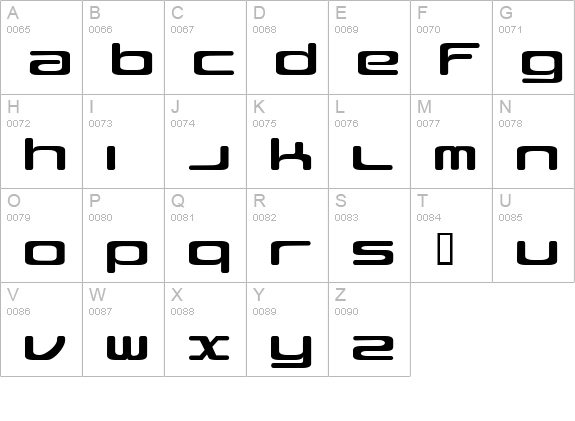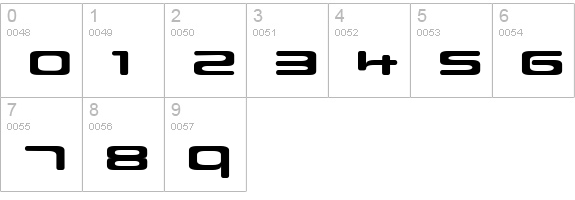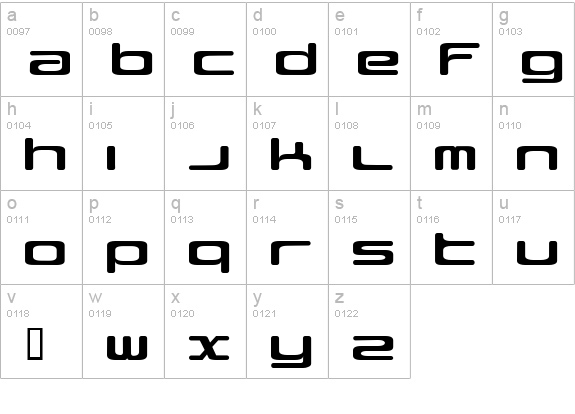
Marble Force 3 font is a stunning display font that exudes elegance and sophistication. With its bold and intricate design, this font captures attention and adds a touch of luxury to any project. Featuring strong and pronounced letters, Marble Force 3 font is perfect for headlines, logos, and branding materials. Its unique and artistic style makes it a standout choice for those seeking to make a statement. Whether you're designing a magazine cover, a poster, or a website, this font will effortlessly elevate your design to the next level. But what truly sets Marble Force 3 font apart is its versatility. It can be used in a wide range of creative projects, from fashion and beauty to architecture and interior design. Its timeless appeal ensures that it will remain relevant for years to come. And the best part? Marble Force 3 font is free! You can easily download it at FontsMarket.com, a trusted source for high-quality fonts. This means that you can enhance your designs without breaking the bank. Whether you're a professional designer or a hobbyist, this free font is a valuable addition to your creative toolbox. So why wait? Download Marble Force 3 font today and unleash its power in your designs. Let your creativity soar with this captivating and freely available font, ready to make a lasting impression on your audience.